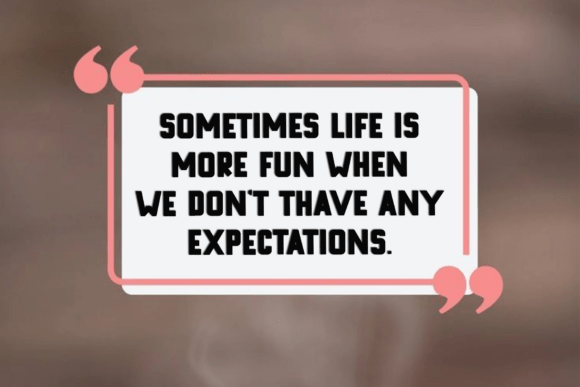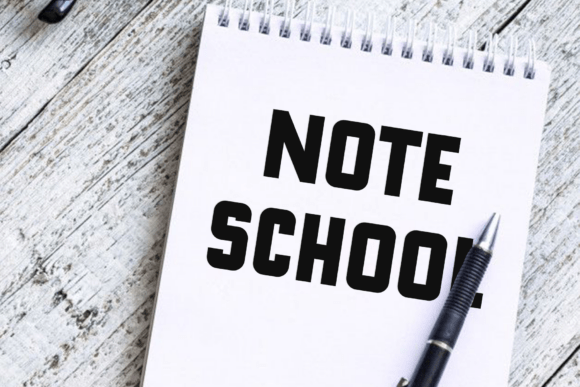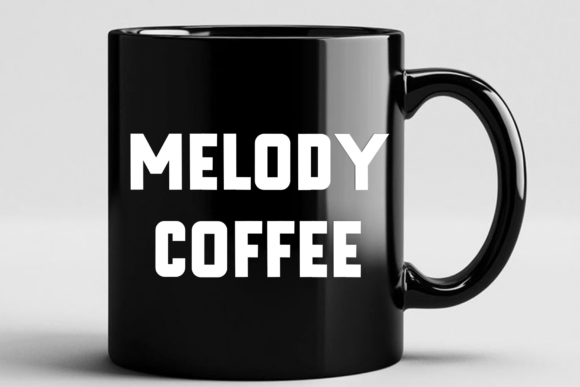
Introduction to Onpoint Font
Have you ever found yourself stuck on a creative project, desperately searching for the perfect font to bring your design to life? I’m sure we’ve all been there, scrolling through endless options, hoping to stumble upon that one special font that elevates our work to the next level. For designers, finding the right font can be a game-changer, making all the difference in how our message is received and how our audience responds.
That’s where the Onpoint Font comes in – a stunning, high-quality font designed to captivate and engage. Its unique strokes and character give it a soft, natural touch that’s perfect for a wide range of creative projects, from crafting to design.
Key Features of Onpoint Font
- High-quality font suitable for various creative projects, including logos, typography, and branding.
- Features a clean and modern design, making it ideal for contemporary creative projects.
Honest Review: Onpoint Font
As a designer, I’m always on the lookout for high-quality design resources that can elevate my creative projects. Recently, I came across the Onpoint Font, and I’m excited to share my honest review with you.
What works well: ✨ The Onpoint Font is incredibly versatile and can be used for a wide range of design projects, from logos and branding to web design and print materials. Its modern and sleek design makes it perfect for creating a professional and polished look.
- What works well: ✨ High-quality design that’s perfect for creative projects
Limitations: ⚠️ While the Onpoint Font is a great addition to any designer’s toolkit, it’s worth noting that it may not be suitable for all design projects. Its modern design may not be the best fit for more traditional or vintage-style projects.
Overall, I’m really impressed with the Onpoint Font. Its high-quality design, free download option, and transparent background make it a valuable design resource for any creative project. I highly recommend giving it a try and seeing how it can elevate your designs.
Tips for Getting the Most Out of Onpoint Font
For optimal results, use the Onpoint Font in conjunction with a high-quality image or graphic. Experiment with different font sizes and styles to create a visually appealing design. You can also use the Onpoint Font in combination with other design resources, such as icons or graphics, to create a cohesive and professional look.
The Onpoint Font is ideal for a variety of creative projects, including logos, social media graphics, brochures, business cards, and presentations. It is also a great resource for designers and artists who need a high-quality font with a transparent background.